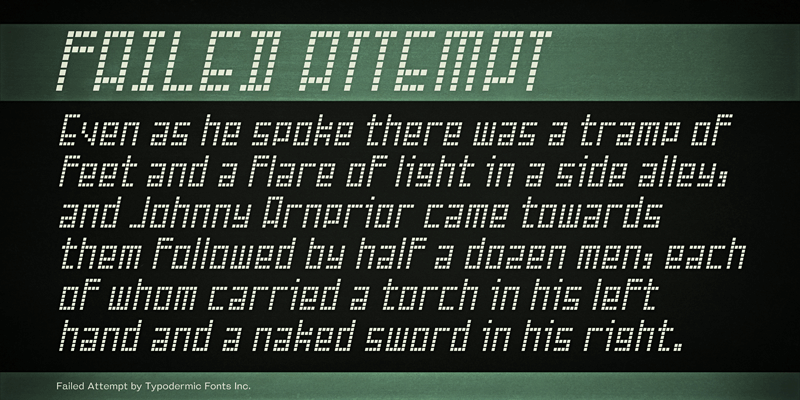
Preview and download Failed Attempt Font. Created by Typodermic Fonts in Techno LCD styles with 100% Free license.
Failed Attempt is a spaced-out pixel font with a slant. This font includes a license that allows free commercial use: sometimes referred to as a desktop license. This allows you to install the font on a computer and use it to create posters, web graphics, game graphics, t-shirts, videos, signs, logos and more. Read the license agreement for details. If you'd like to embed this font in an app, ebook, on the web or anything that's not covered by the desktop license agreement, visit the link below. You'll find distributors who offer different types of licenses or you can contact me for help. http://typodermicfonts.com/failed-attempt/ |